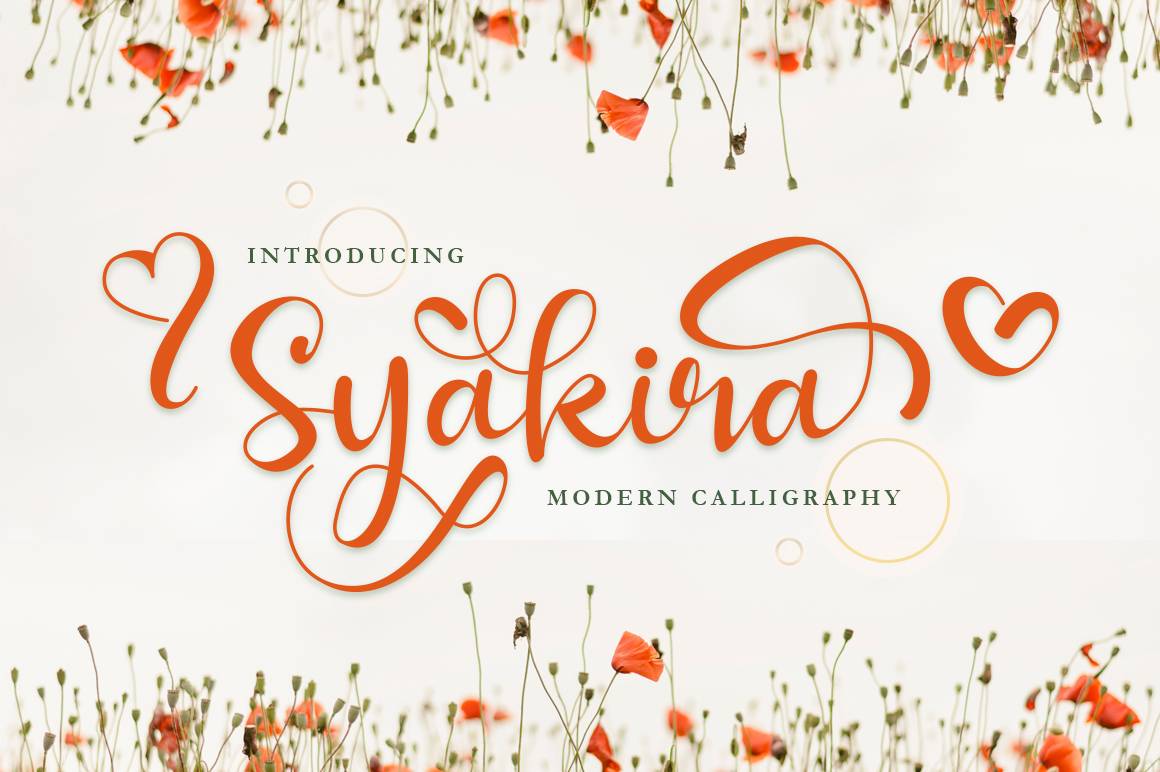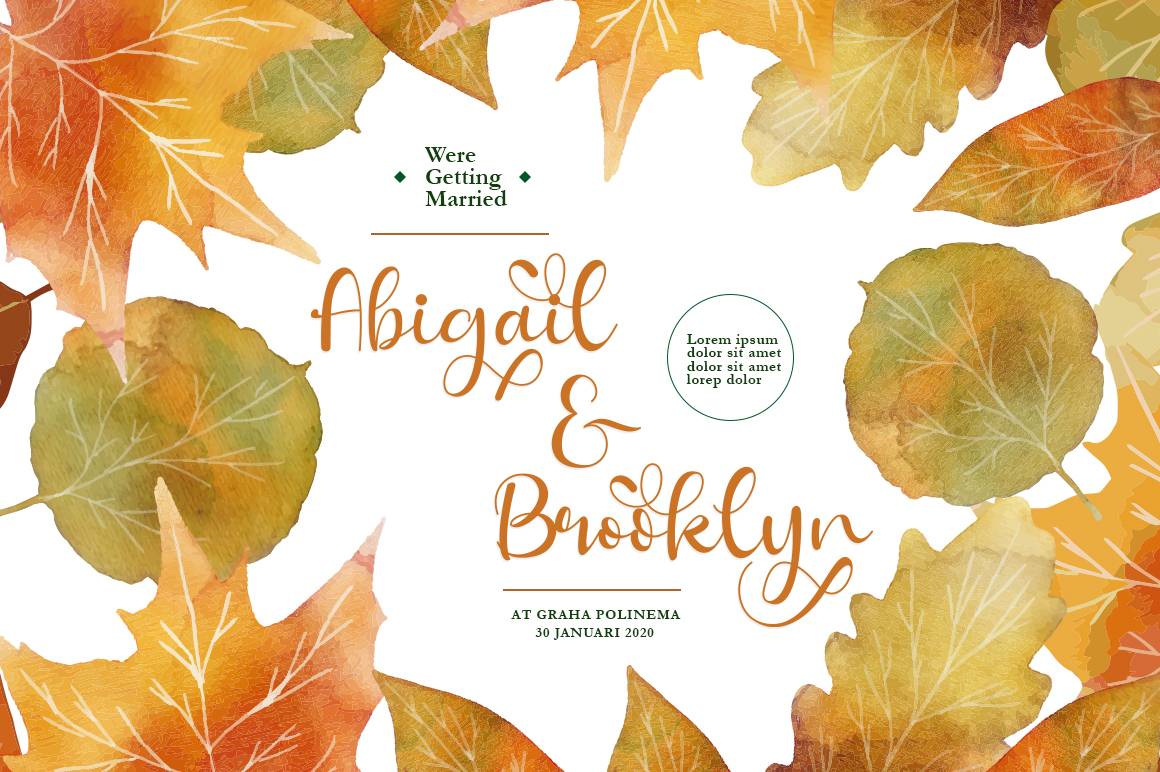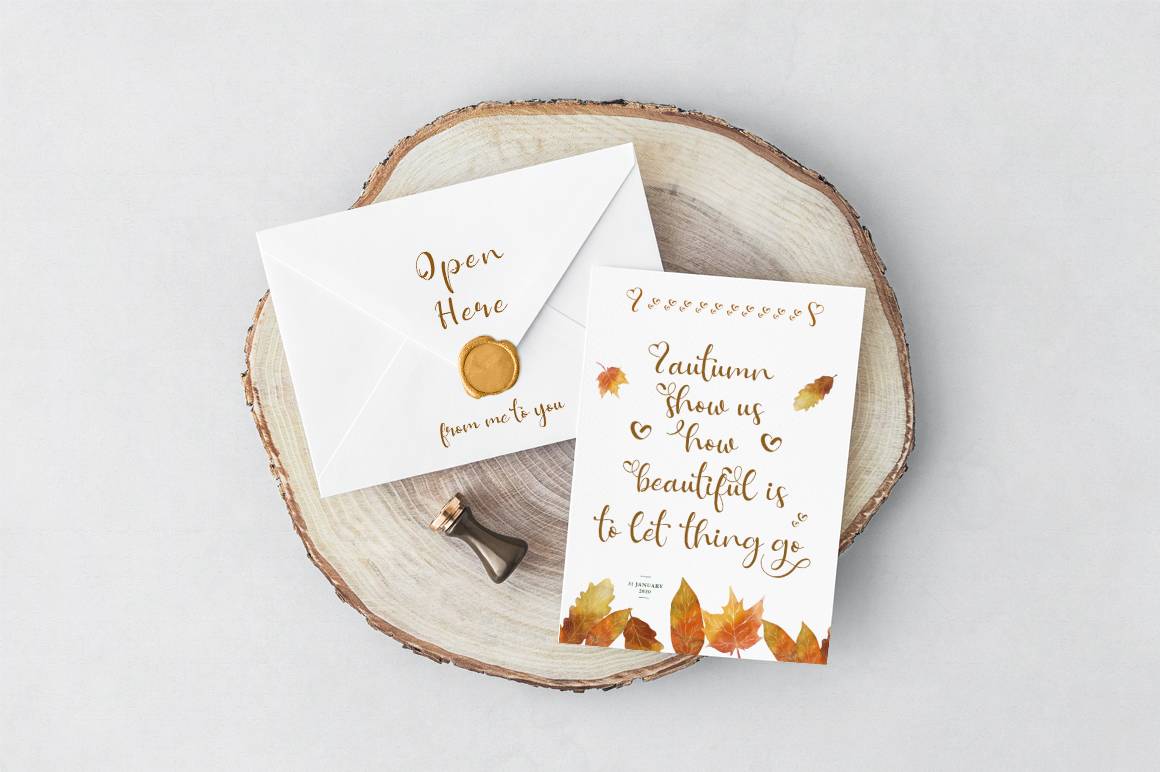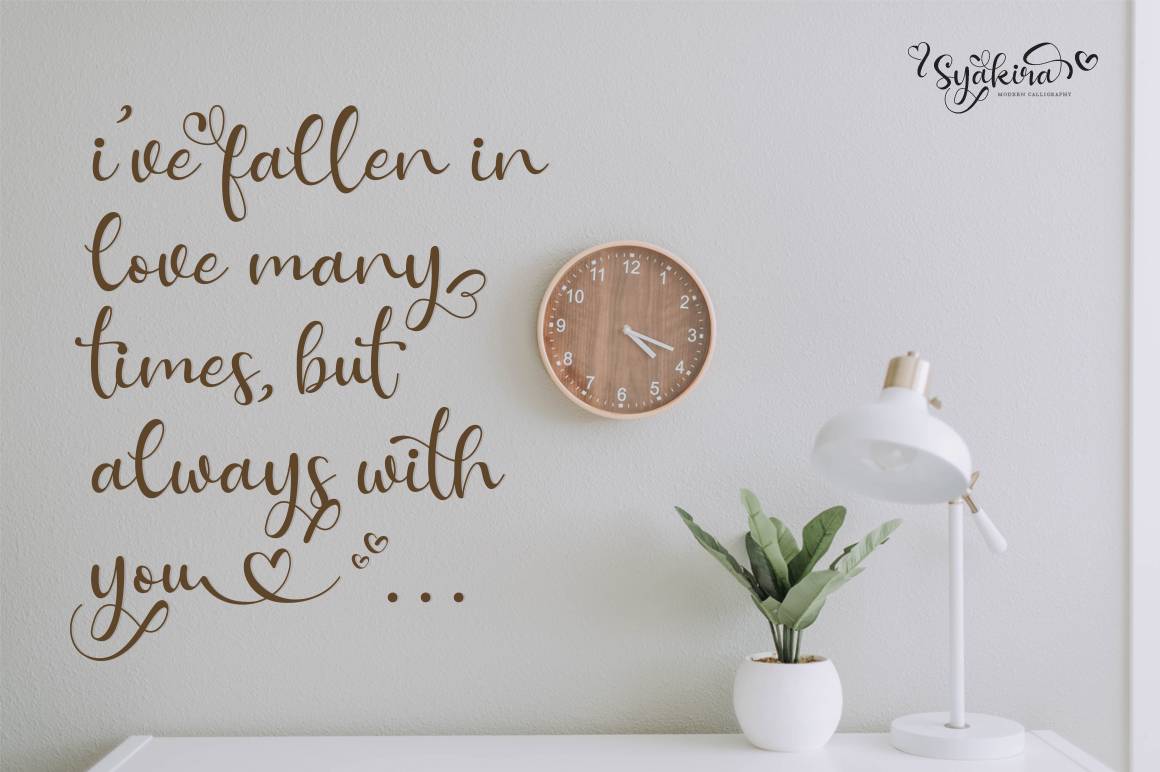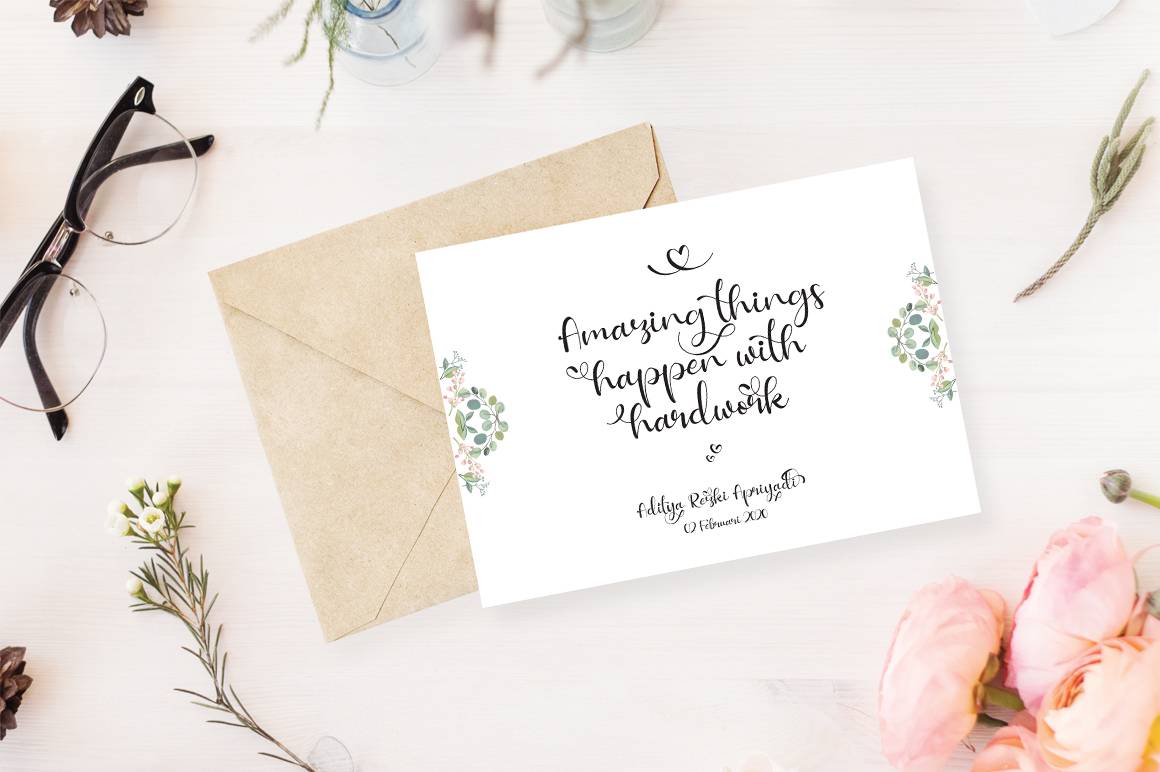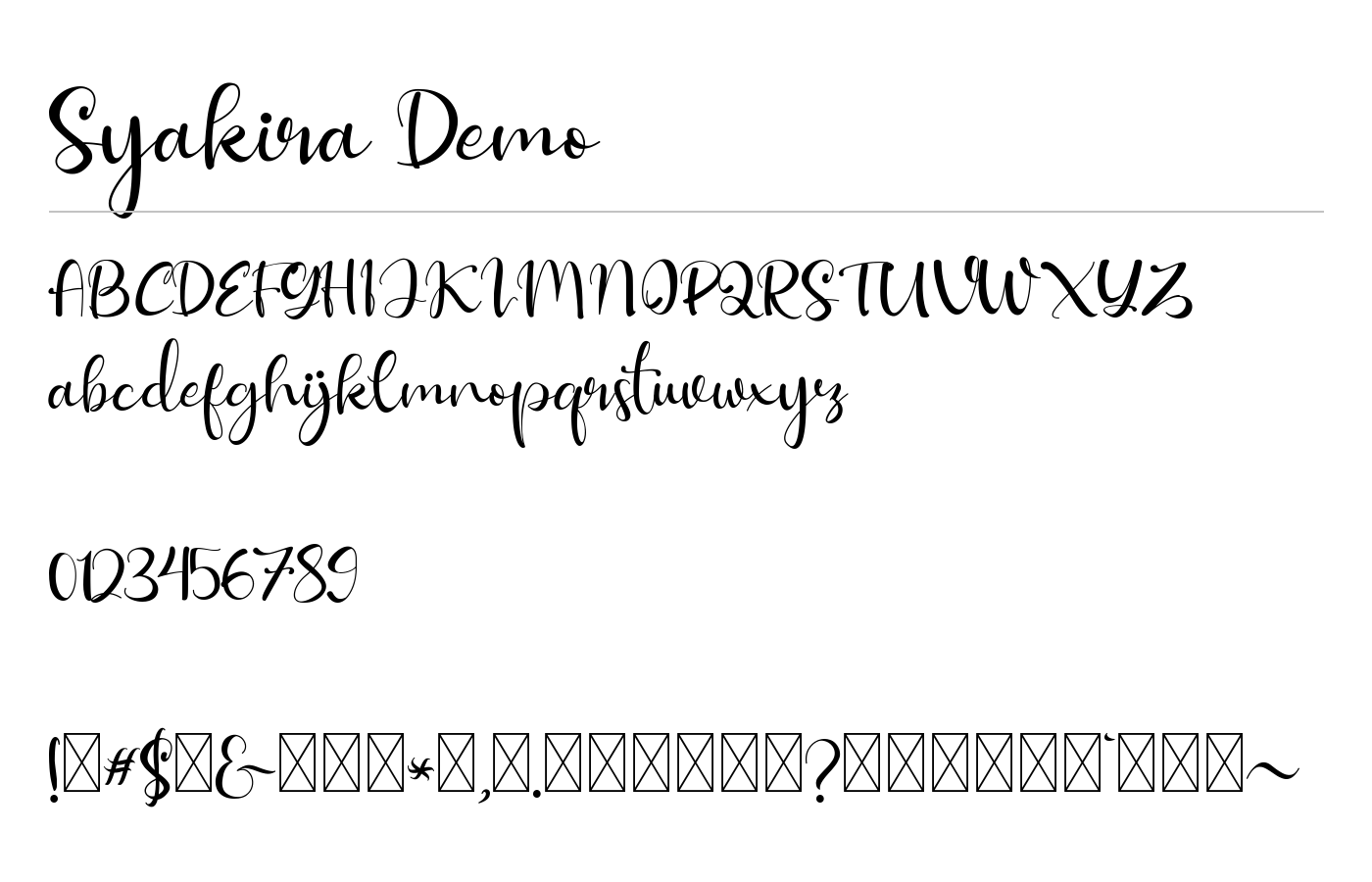
Syakira Font is a charming script typeface with a graceful, handwritten style that features smooth, flowing strokes and moderate contrast, creating an elegant yet approachable feel. Its delicate curves and distinct letterforms make it perfect for invitations, branding, and creative projects that want to convey warmth and sophistication. This font works especially well in logos and headlines where a personal, stylish touch is desired.
Syakira Font
About Syakira Font